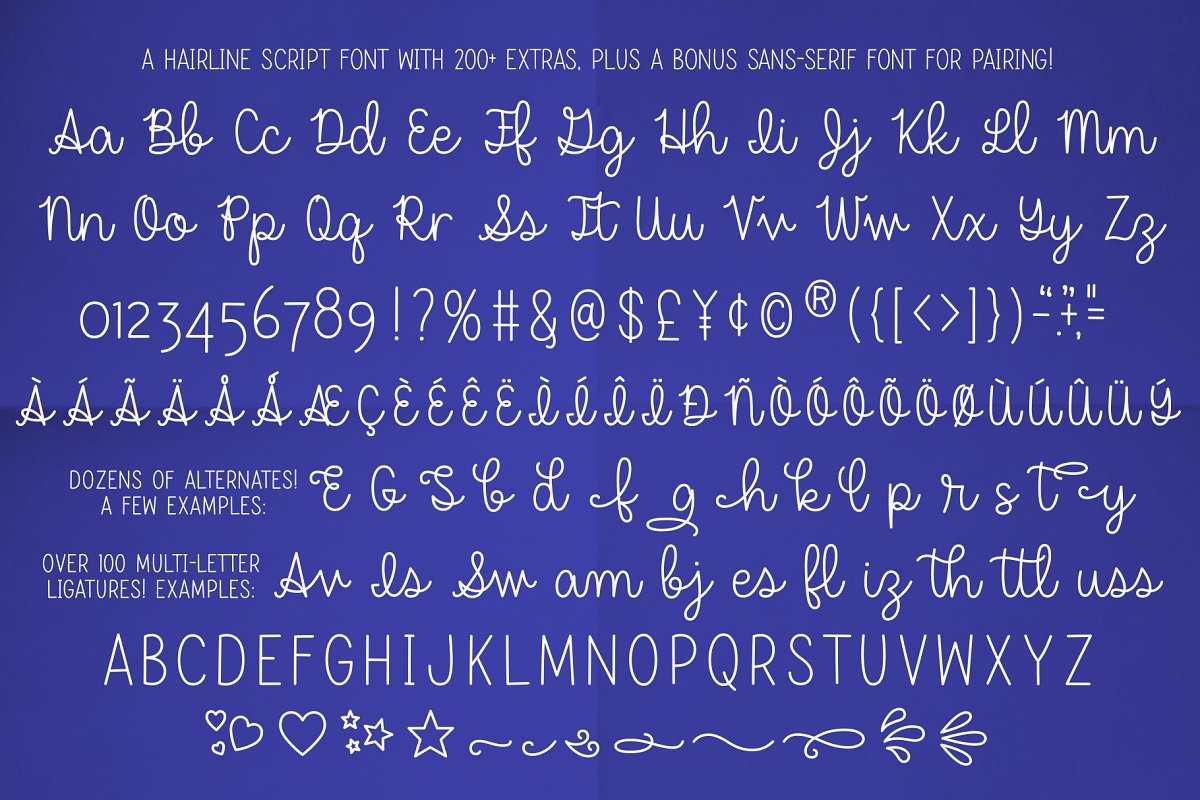
About the Dear Agatha a single line duo Font
Introducing Dear Agatha, a single-line and hairline font duo! You get a fun cursive font with tons of alternates and extras, and an all-caps sans-serif for easy pairing, Single-line and hairline fonts aren’t your ordinary fonts; they can’t be used for word processing, printing, or cutting, They’re meant for a sketch pen, foil quill, engraving tool, infusible ink pen, or any other stylus or nib that draws letters with a single line instead of an outline
Both fonts come in both a single-line version and a hairline version; different software programs will use different formats, Not sure which format you need? You can download and install both!Dear Agatha is a connecting script font, with over 200 alternates, ligatures, and extras for variety! It also includes the full Basic Latin and Latin-1 character sets, so you have plenty of punctuation and a number of accented letters for language support
Dear Agatha Sans is a perfectly paired sans-serif, also with the full Basic Latin and Latin-1 sets!Even though these are TTF files, all of the alternates are OpenType coded and PUA-encoded, for easy access in a ton of programs, You can even use these fonts in vector programs like Adobe Illustrator, CorelDRAW, Affinity Designer, Inkscape, and more! Just apply a stroke and not a fill, and you can make the font as heavy or light as you like, then expand the text to outlines!I’ve included a couple of handy PDF documents as well